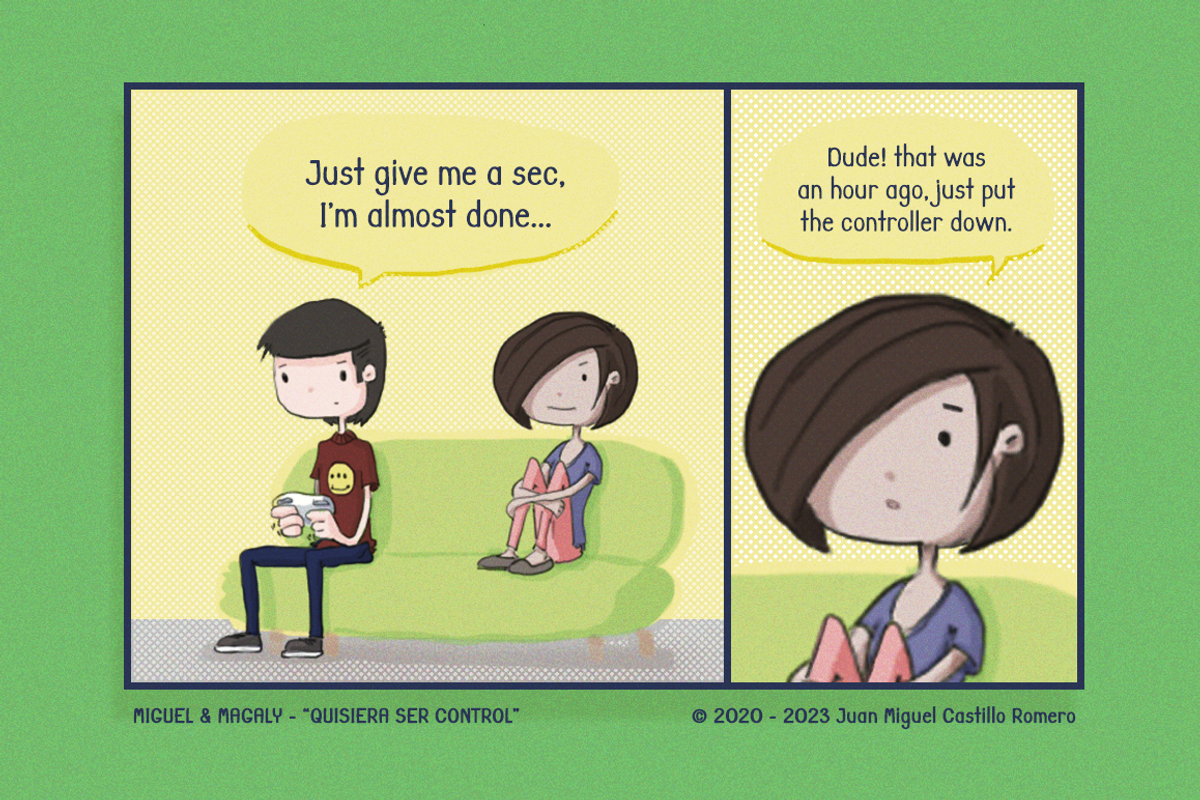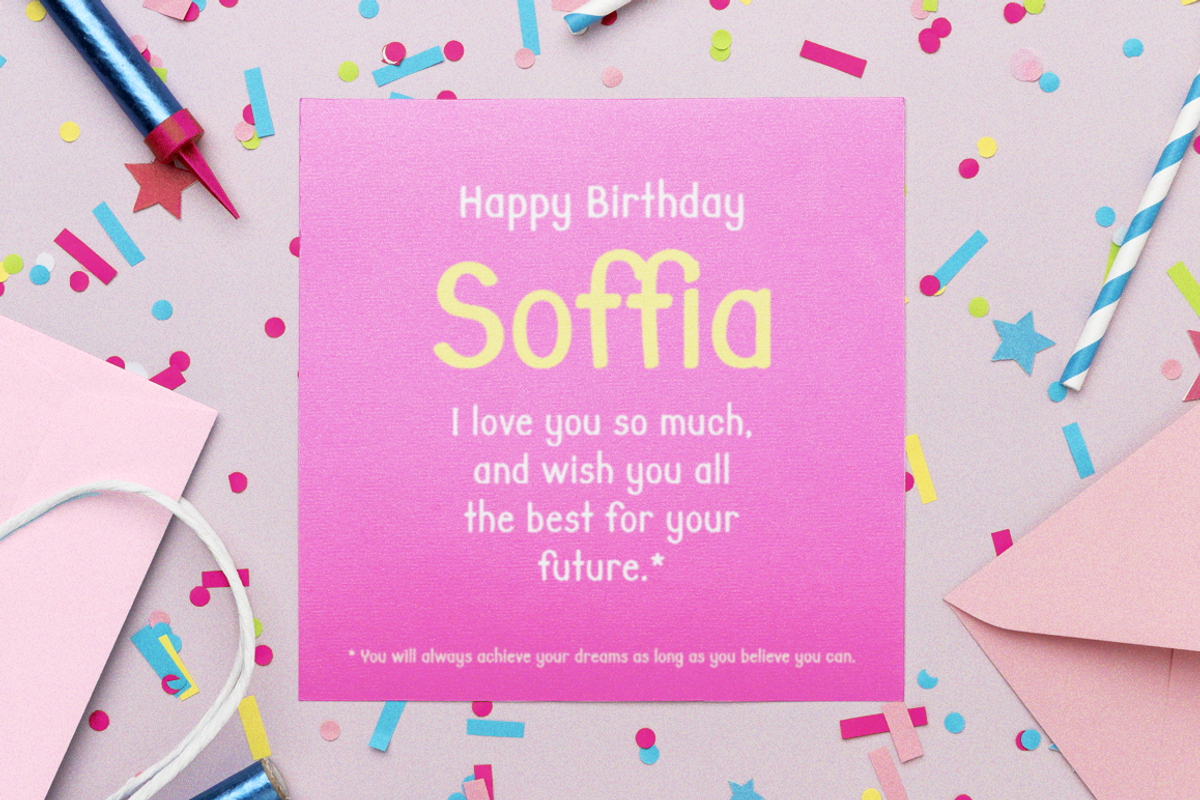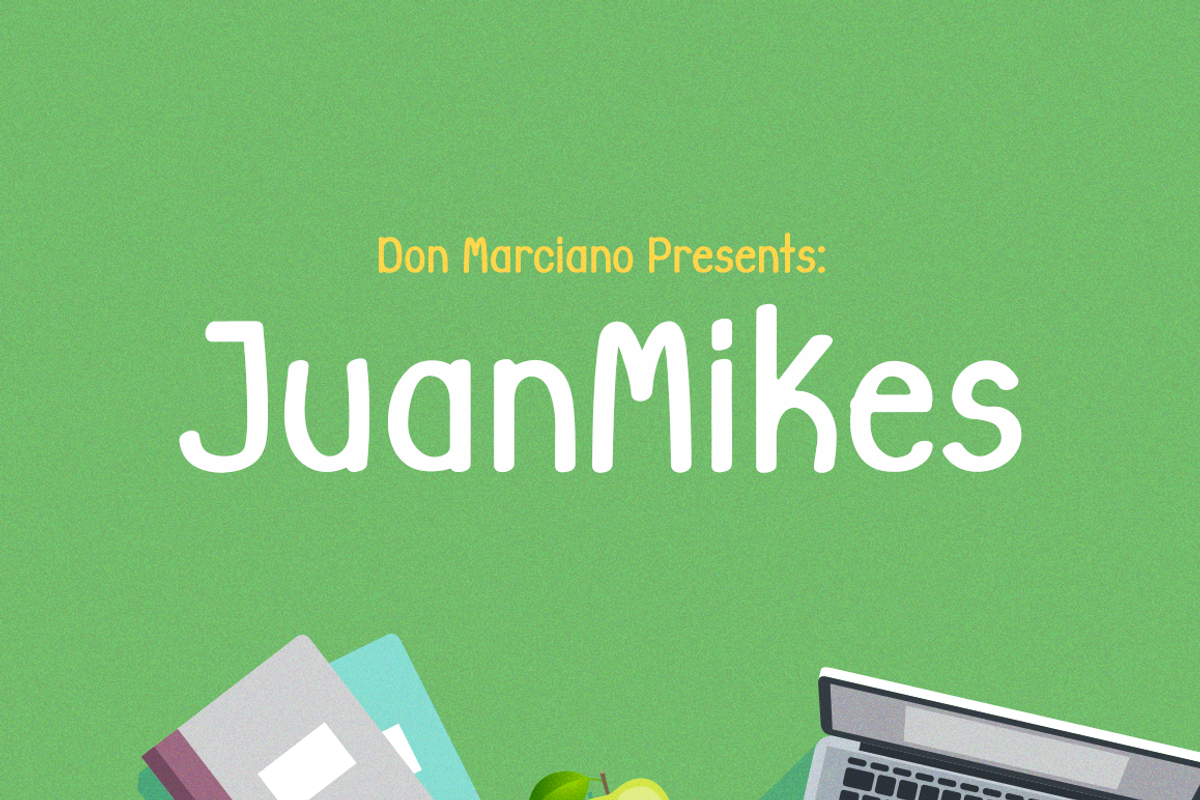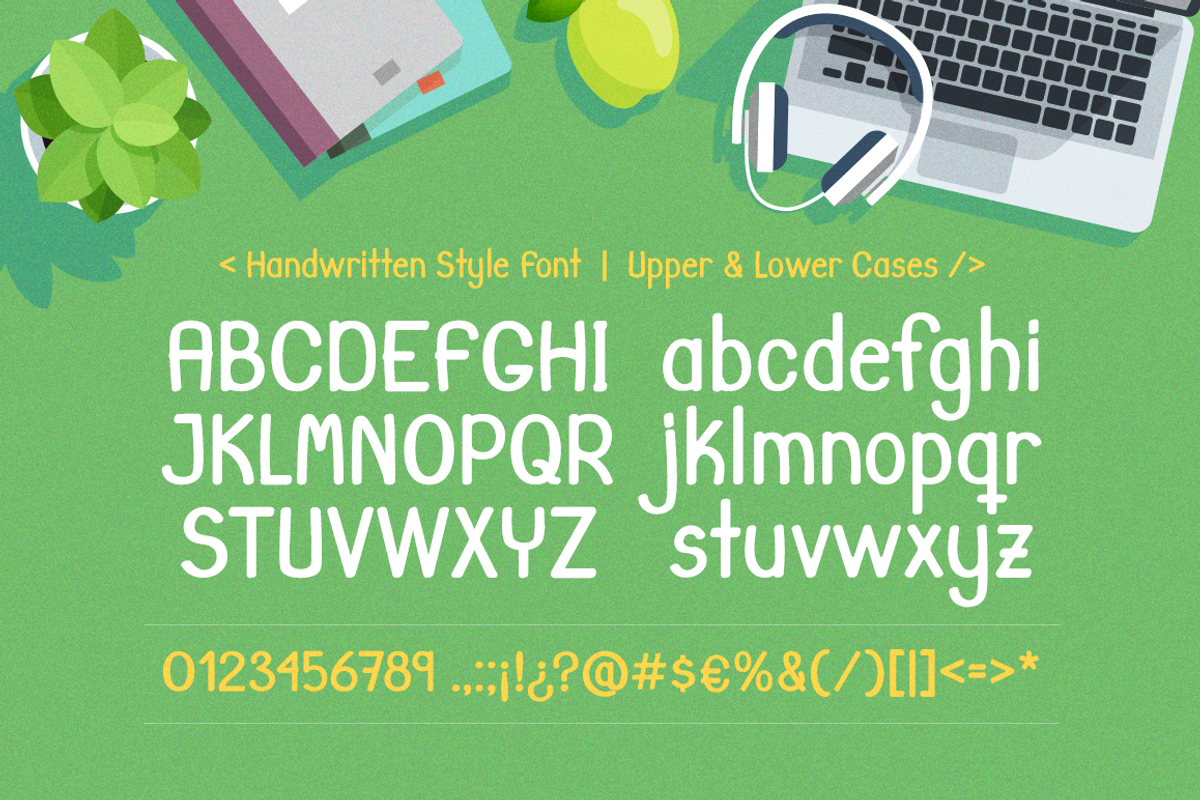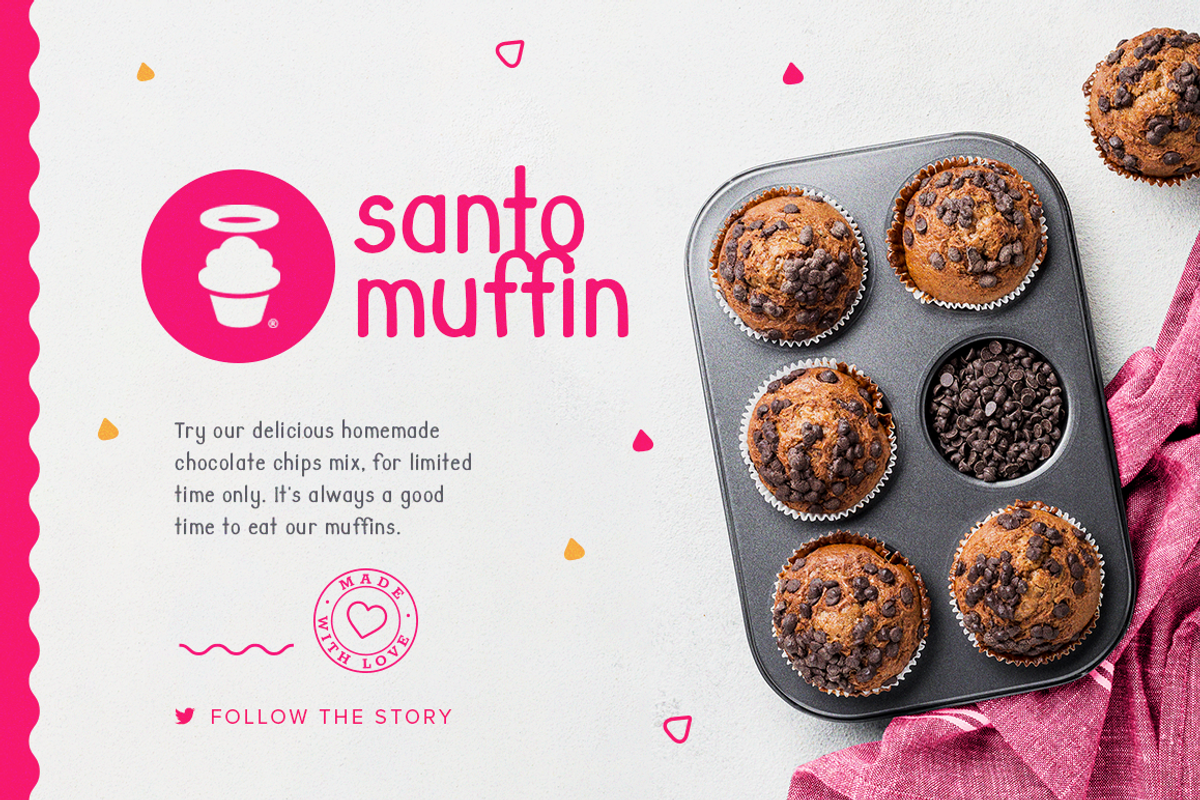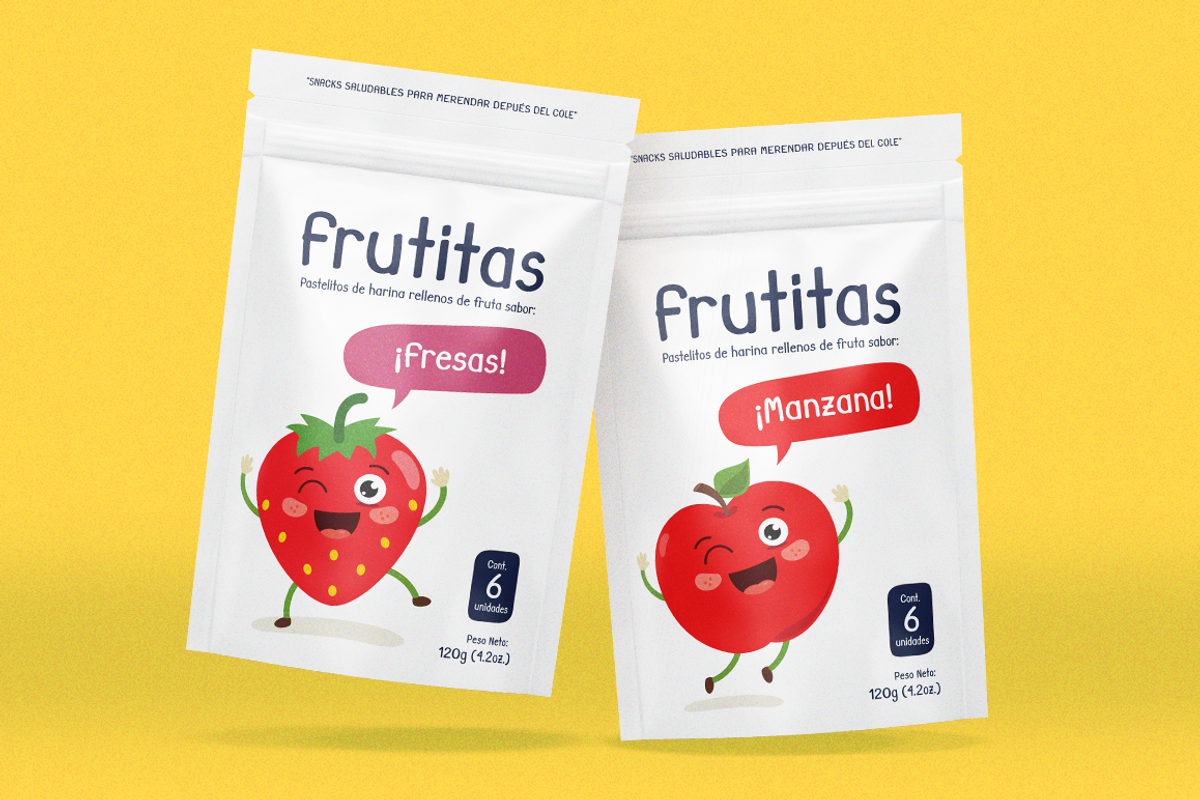
JuanMikes
JuanMikes is a handwritten style font for kids-like design materials in all sorts of applications: print, garments, brands, social, and digital uses; inspired by the casual lifestyle of suburban kids, it translates to the round yet clean lines of the overall look of the design. The typeface is still a kid wanting to become a teenager that feels like an adult without the responsibilities.